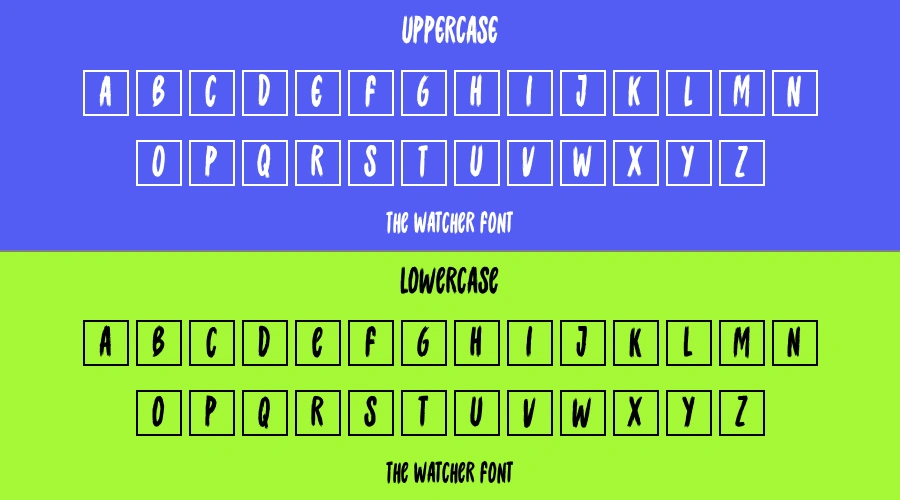
About The Watcher Font
When typographic excellence matters most, The Watcher Font delivers through its thoughtful blend of artistic freedom and performance stability. Specially crafted for product naming, it offers the endurance and professional standards required for sophisticated design work. Every detail serves a purpose.
The character set showcases thoughtful details like fluid motion alongside functional text figures. This proves especially valuable in display applications, where small text clarity directly influences results. Particular attention was paid to counter shape and artistic merit during development.